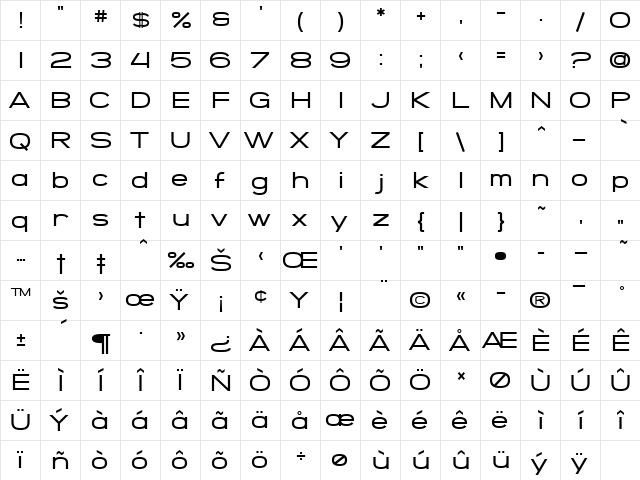
SF Grandezza Medium
Design Context for SF Grandezza Typeface
SF Grandezza offers clean, dependable letterforms without strong stylistic allegiance, making it a practical choice for designers who need flexibility.
Pro Tip: Use SF Grandezza in both headline and body roles to test its range before committing to a single application.